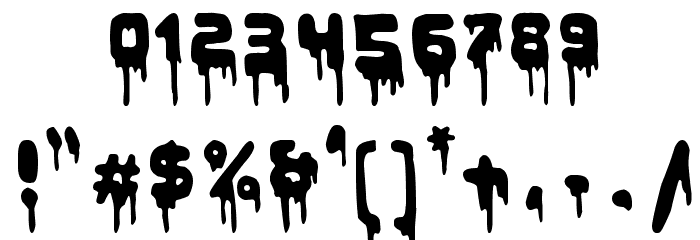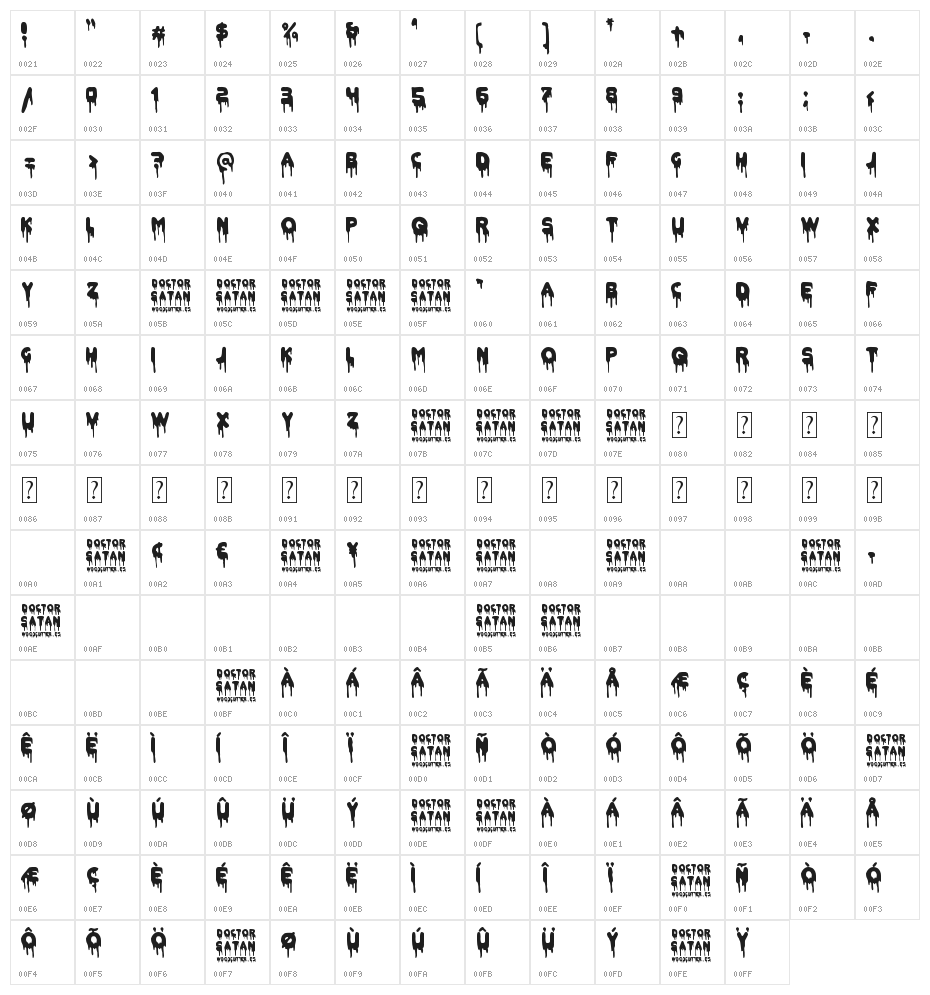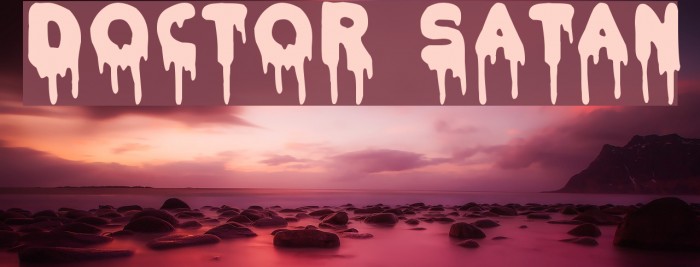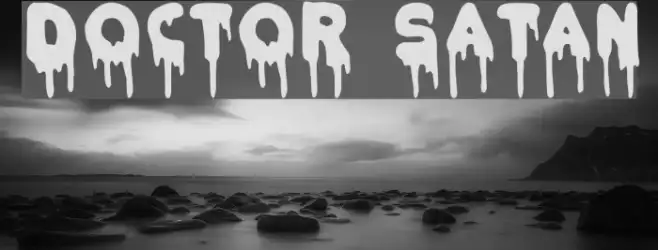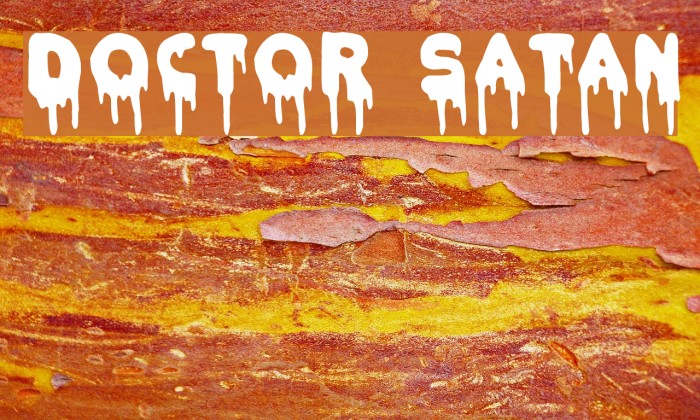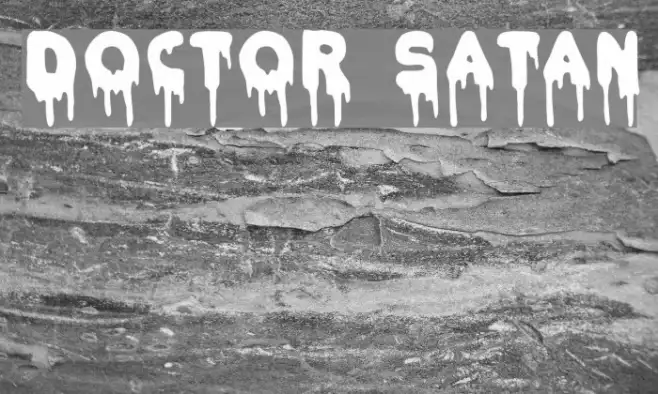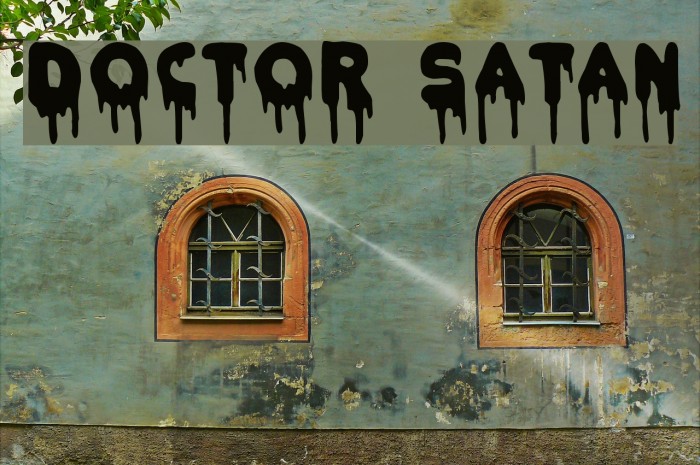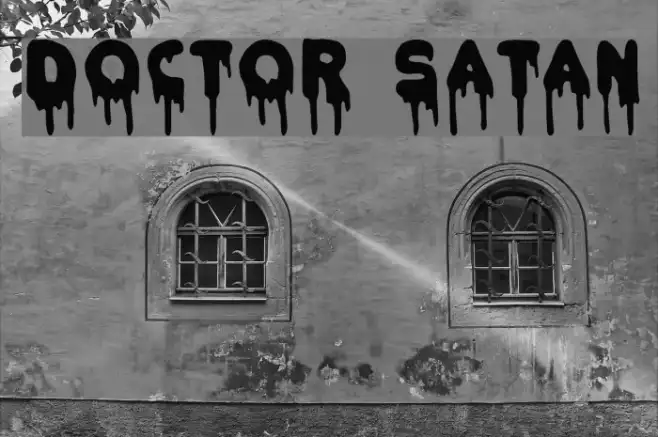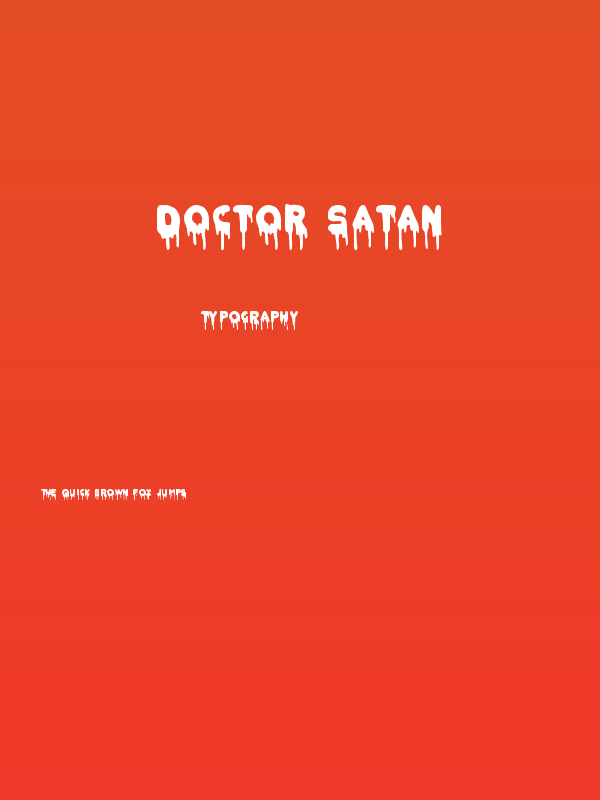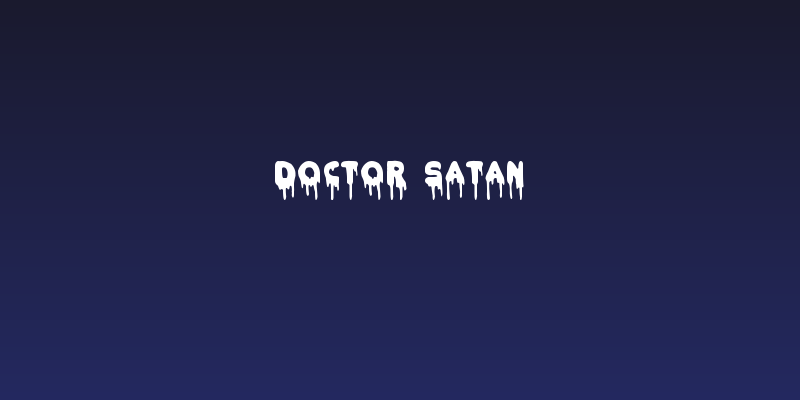
Doctor Satan Font
Doctor Satan Description
This font features a unique, dripping effect that gives the impression of melting or oozing letters, creating a spooky and eerie aesthetic. The characters are bold and heavily stylized, with each letter appearing as if it is slowly dissolving. This design choice adds a sense of movement and fluidity, making it ideal for themes related to horror or Halloween. The uppercase and lowercase letters maintain a consistent style, with the numbers and special characters also following the same dripping motif. The overall appearance is both eye-catching and unsettling, perfect for creating a dramatic visual impact.
| Proposed Projects | Ideal for Halloween-themed projects, horror movie posters, haunted house flyers, or any design needing a creepy, dramatic flair. |